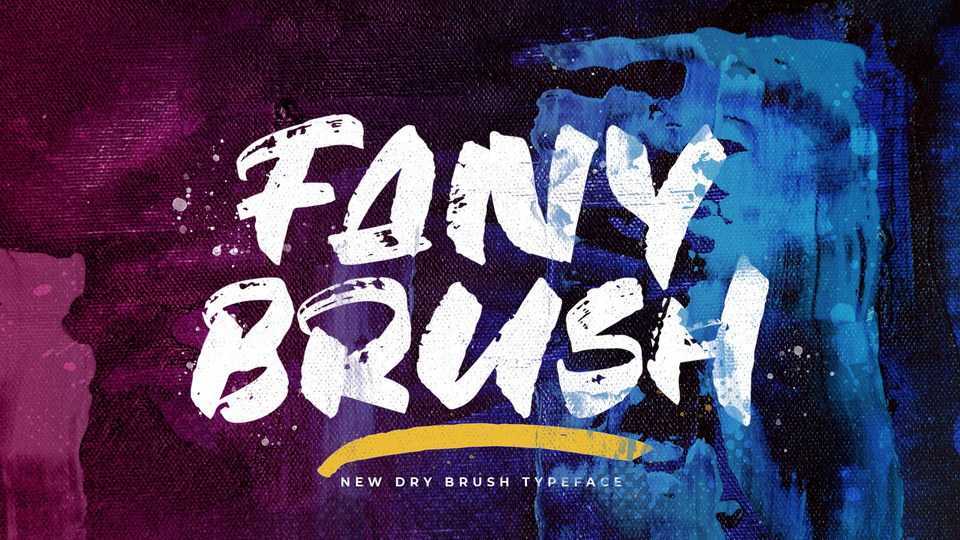
Download Fany Brush font, a bold textured hand painted brush typeface with a dynamic vibe. Fany Brush is perfect for posters, album artworks, headlines, eye-catching messages and more.